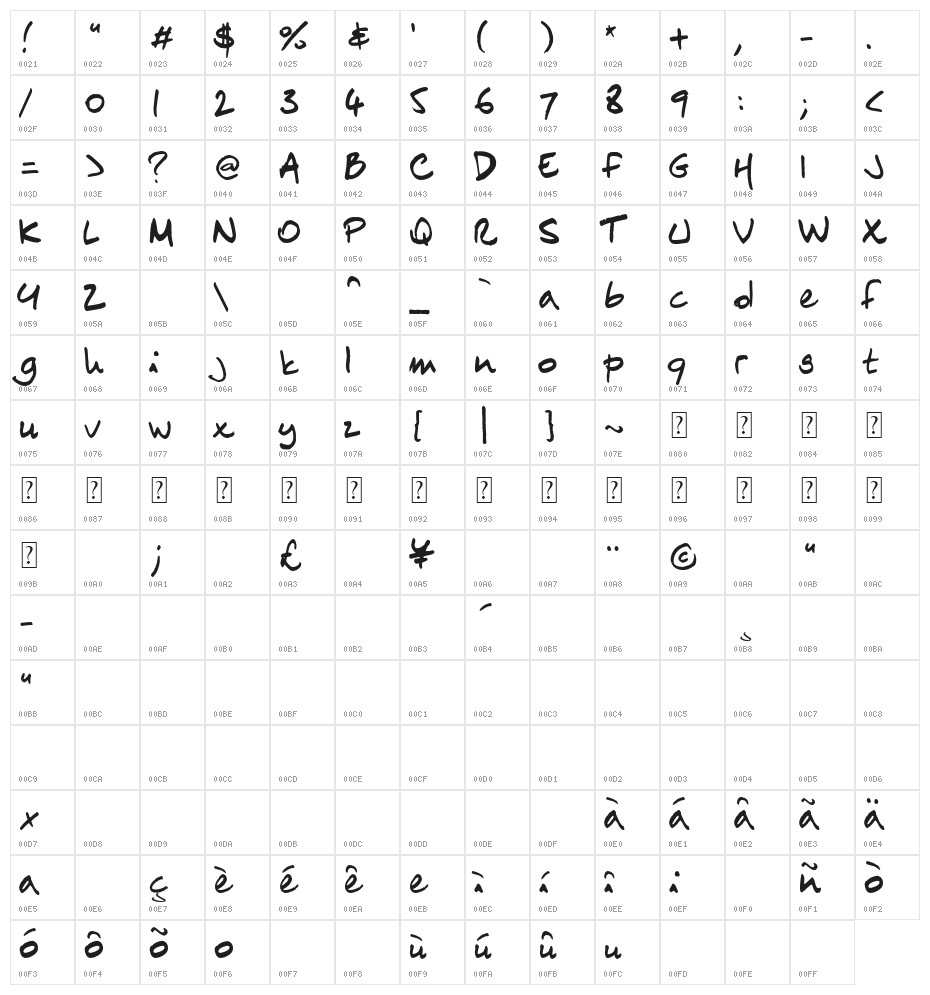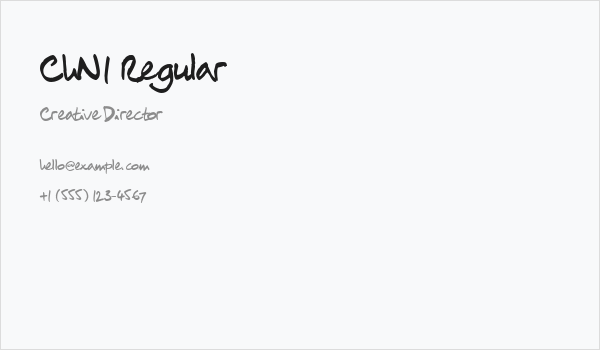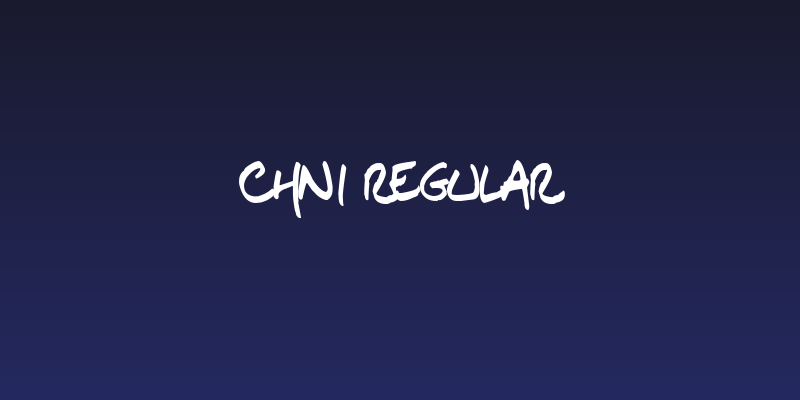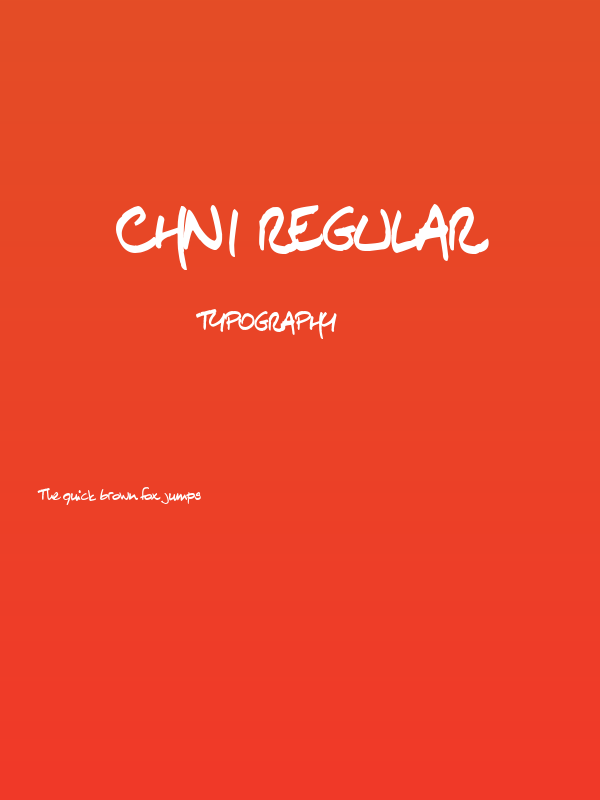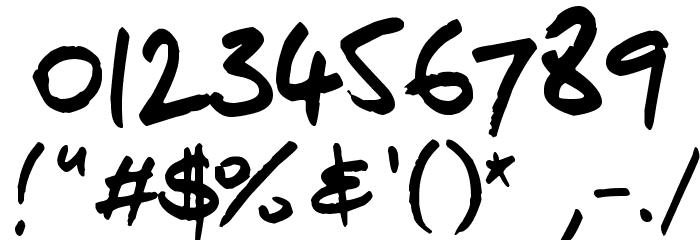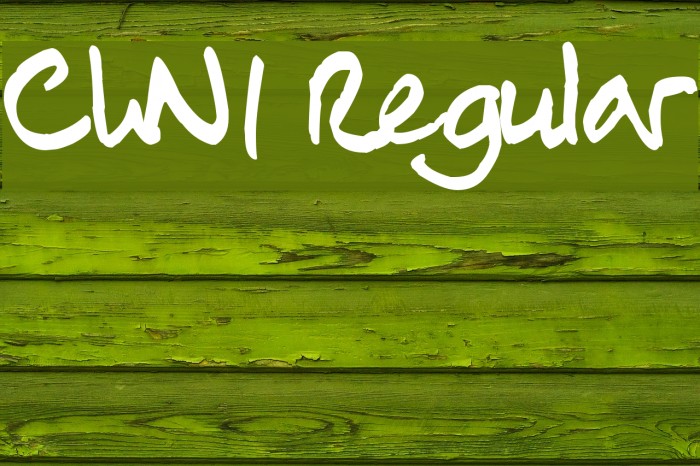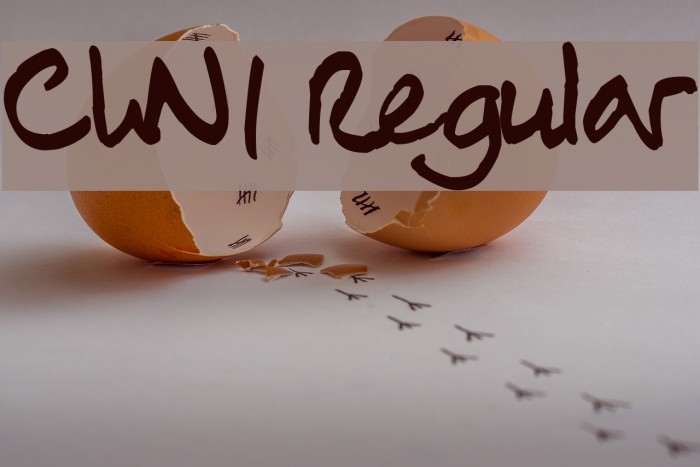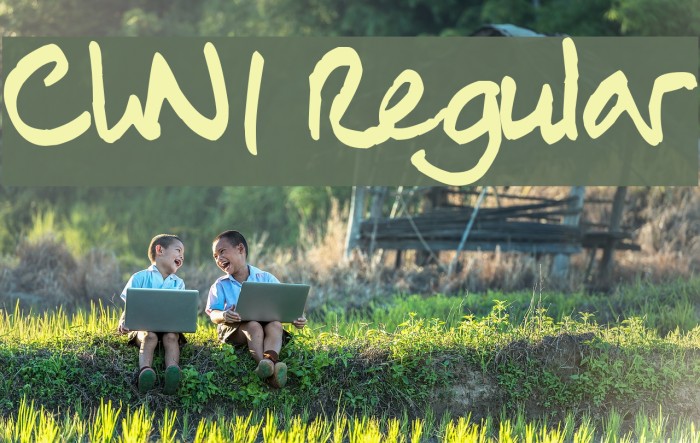
ChN1 Regular Font
ChN1 Regular Description
This font exhibits a bold, handwritten style with a dynamic and energetic appearance. The strokes are thick and uneven, giving it a casual, informal feel. The letters are slightly slanted, adding to the sense of movement and spontaneity. The uppercase and lowercase characters maintain a consistent style, with rounded edges and a playful character. The numbers and special characters follow the same aesthetic, ensuring a cohesive look across all text elements. This font is ideal for projects that require a personal touch or a creative flair.
| Overall Style | Casual, Energetic |
| Use Case | Headlines, Creative projects, Informal communications |
| Proposed Projects | Ideal for greeting cards, posters, social media graphics, and creative branding projects. |